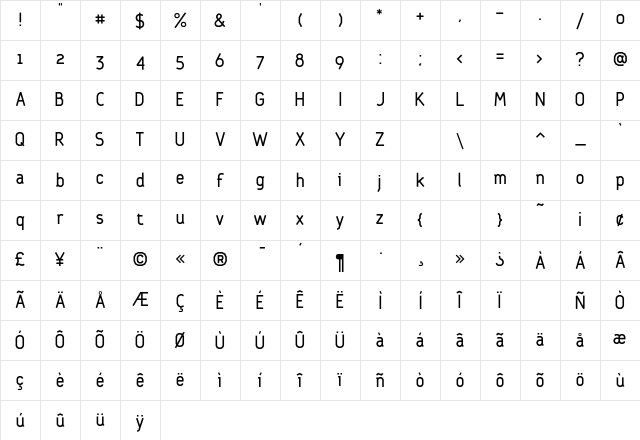
Complete Dubius Book glyph index. Displaying only characters natively supported by Dubius Book font.
Dubius is a composed and adaptable typeface that performs quietly and consistently across a wide range of design contexts.